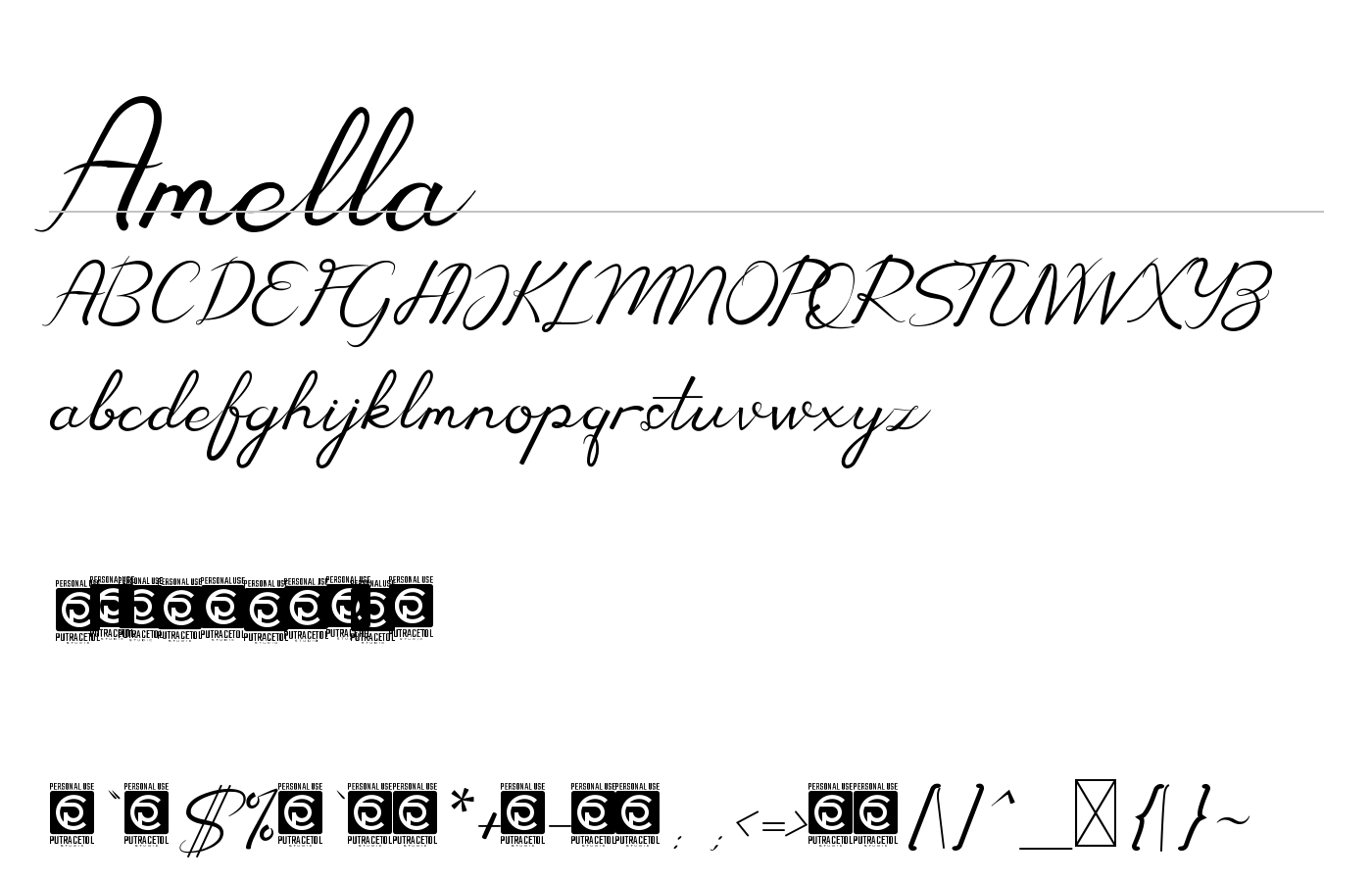
Amella is an elegant script font that combines graceful, flowing strokes with a delicate, handwritten feel. Its slender, slightly tall letterforms and smooth curves make it perfect for sophisticated branding, invitations, and stylish headlines where a touch of refinement and personality is desired. This font works best in designs that aim to convey warmth, creativity, and elegance with a modern yet classic vibe.
Amella Font
About Amella Font
| Font family | Amella Font |